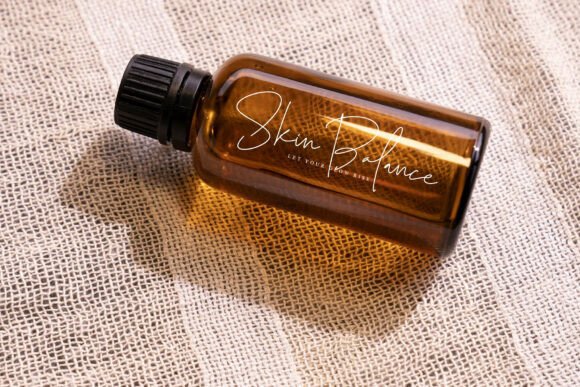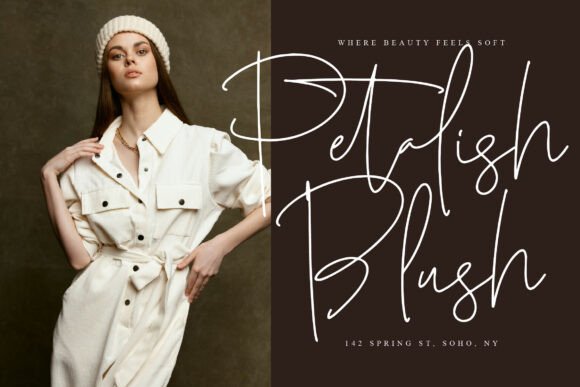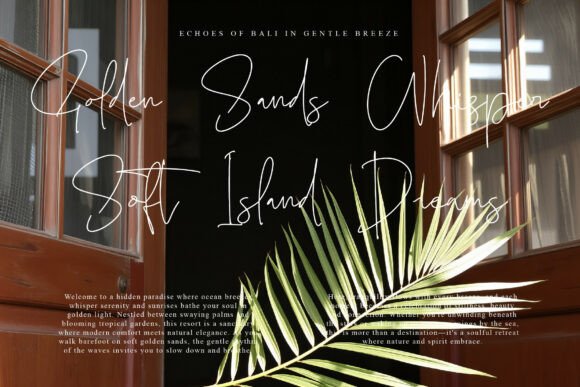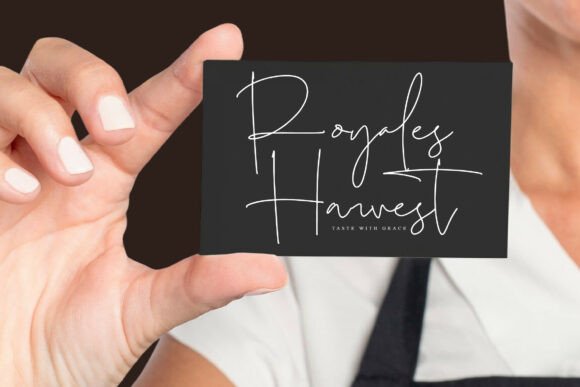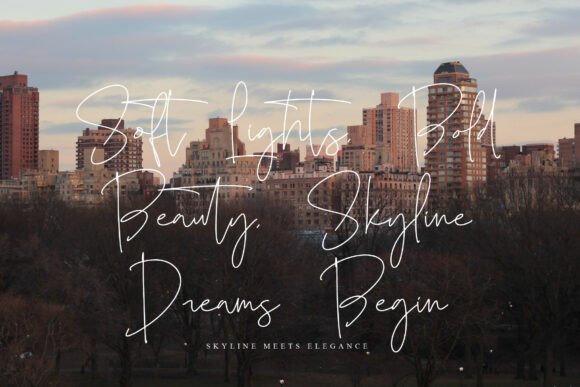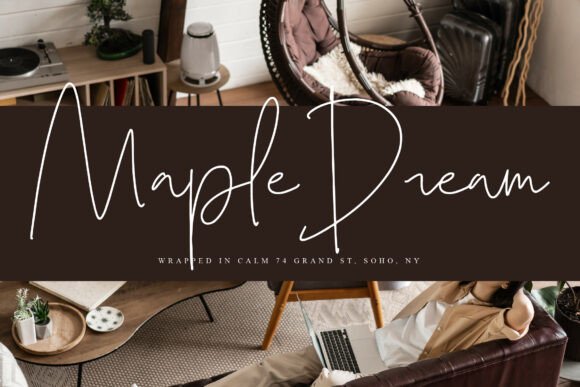
Introduction to Skalinyas Font
Have you ever found yourself browsing through a quaint coffee shop, mesmerized by the elegant typography used in their branding? For designers, those ‘aha’ moments are the spark that sets our creative wheels in motion. One such moment might lead you to discover the beautiful Skalinyas Font, a high-quality script font that exudes modern sophistication.
As a valuable design resource, Skalinyas Font offers a unique blend of elegance and playfulness, making it perfect for a wide range of creative projects, from quote posts and digital signatures to coffee shop branding and creative packaging. With its generous loops and sweeping ascenders, this font is sure to elevate your design game and leave a lasting impression on your audience.
Key Features of Skalinyas Font
- High-quality, unique design suitable for creative projects
- Perfect for designers, artists, and writers looking for a distinctive, high-quality font
Honest Review: Skalinyas Font
As a designer, I’m always on the lookout for high-quality design resources to elevate my creative projects. The Skalinyas Font caught my attention, and I’m excited to share my honest review with you.
- ✨ Beautifully crafted lettering with a unique, modern aesthetic
- ✨ High-resolution images with transparent backgrounds, making it easy to use in various design contexts
- ⚠️ Limited character set, which may not be suitable for extended text-based projects
- ⚠️ Not ideal for use in small text sizes, as the lettering may become distorted
Overall, I’m impressed with the Skalinyas Font’s unique design and high-quality images. While it may have some limitations, it’s an excellent choice for designers working on creative projects that require a modern, eye-catching aesthetic.
Getting the Most Out of Skalinyas Font
For optimal results, use the Skalinyas Font on a transparent background to create a seamless design experience. You can also use it in combination with other design resources to create a unique and creative project.